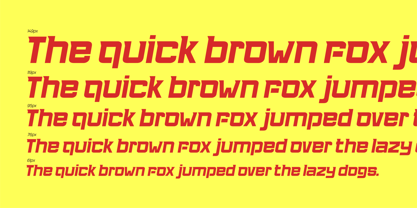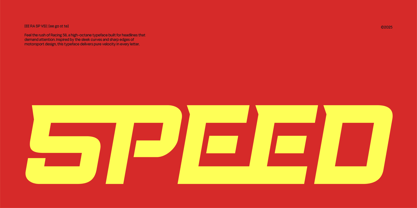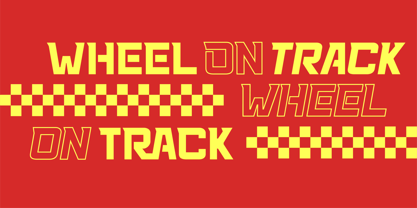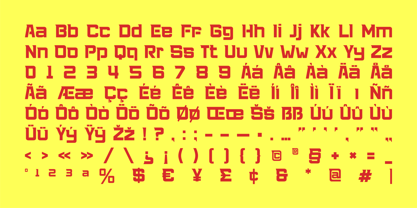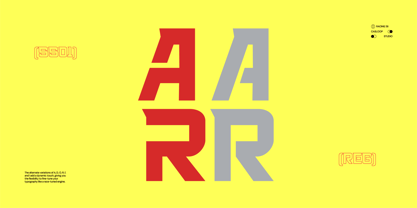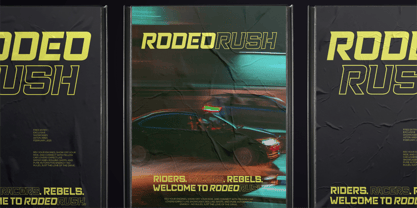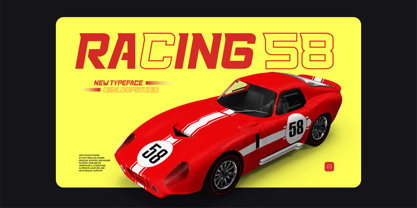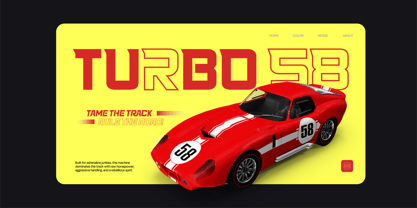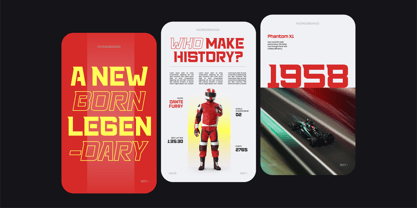
Racing 58
Die Schriftfamilie Racing 58 wurde von Wantara Putra entworfen und von Casloop Studio veröffentlicht. Racing 58 enthält 4 Stile und Familienpaketoptionen. Mehr über diese Familie
Racing 58: High-Speed Typography for Adrenaline-Fueled Designs
Racing 58 is built for speed, power, and bold impact. Inspired by the energy of motorsports, this typeface delivers a high-speed aesthetic with slanted & aggressive shapes, aerodynamic letterforms, and a dynamic slant that commands attention. Whether it's for race-day branding, high-octane posters, or performance-driven visuals, Racing 58 ensures your message leaves everything else in the dust.
Features
• Modular & geometric structure designed for precision and consistency
• Speed-driven letterforms inspired by vintage race cars, pit lane signage, and bold automotive typography
• Alternate styles and ligatures for extra flexibility
• Multiple styles including Regular, Slanted, Inline, and Inline Slanted
• Full multilingual support with accented characters
Every curve and edge in Racing 58 is tuned for impact. Whether you’re designing for the track or the digital world, this typeface brings the thrill of speed to life.